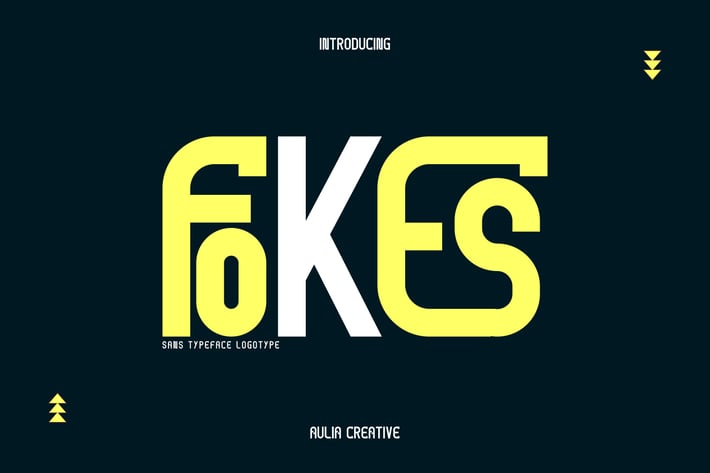
Fokes - Modern Sans Typeface legatures
Introducing our new product Fokes - Modern Sans Typeface legatures
Fokes - Modern Sans Typeface legatures & Font Logo and authentic display font.